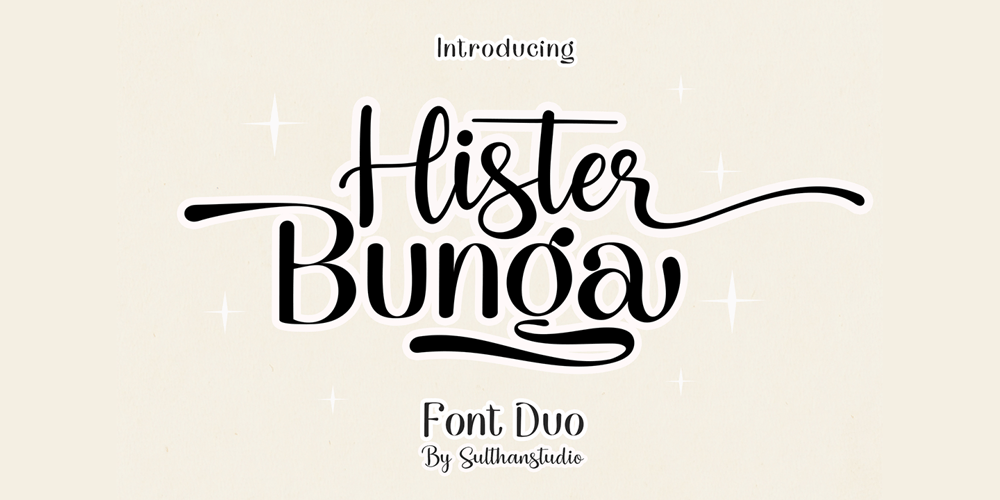
Hister Bunga 1 Font Family was designed by Nasrullah and published by Sulthan Studio. Hister Bunga 1 contains 2 styles and family package options. Hister Bunga Font Duo Comes with a modern handwriting style and a font with an extraordinary typeface combined with a classy touch making it suitable for any project you are working on that requires two touch script and display fonts.